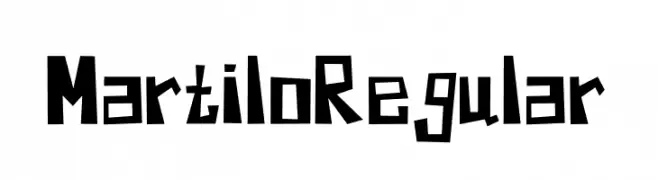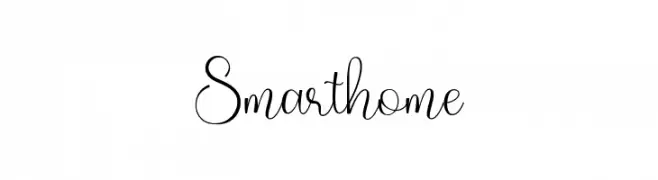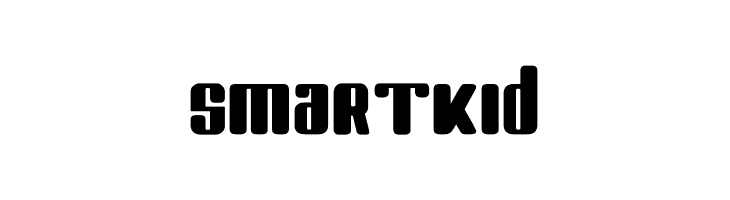
A dynamic and elegant script font with flowing, cursive letterforms.
A bold, geometric font with rounded edges and a modern style.
A casual, handwritten font with a flowing, cursive style.
A bold, angular font with a geometric and edgy style.
An elegant, flowing script font with graceful curves and ornate uppercase letters.
A charming and elegant script font with flowing, cursive letterforms.
A bold, expressive handwritten font with playful curves.
An elegant, flowing script font with a calligraphic influence.
A bold, modern sans-serif font with clean lines and excellent readability.
A bold, modern sans-serif font with a strong and assertive appearance.